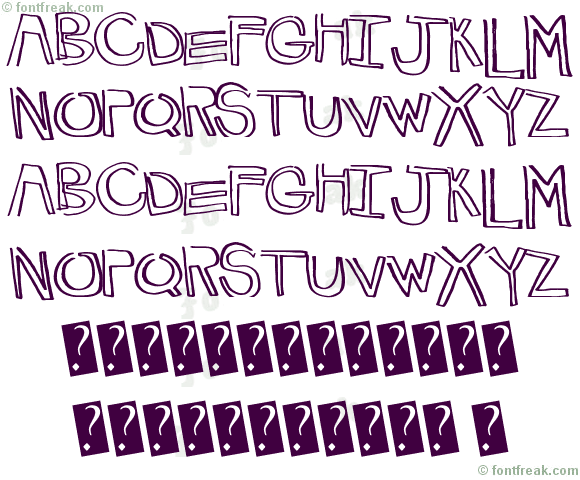
HappyLines
HappyLines, designed by Xerographer Fonts in 2012, is a charming display font that exudes a playful and whimsical character. This handwritten typeface features uneven stroke weights and a light contrast, giving it a lively and spontaneous feel. The letters are generously spaced, allowing for easy readability while maintaining a fun aesthetic. Its unique design includes slight variations in letter height and playful curves, making it ideal for projects that aim to convey joy and creativity.
This font is particularly suited for a variety of use cases. It shines in wedding invitations, where its cheerful style can set a lighthearted tone for the celebration. Additionally, HappyLines is perfect for children’s book covers, adding a touch of whimsy that appeals to young readers. Restaurant menus can also benefit from its inviting appearance, making dishes sound even more delectable. Furthermore, HappyLines works well for social media graphics, helping content creators engage their audiences with a fun and approachable vibe.
Target audiences for this font include graphic designers looking to add a playful element to their projects, small business owners aiming to create a memorable brand identity, and content creators who want to infuse their materials with a sense of joy. HappyLines font free download is an excellent option for those who seek to elevate their designs without incurring costs.
Overall, HappyLines stands out due to its unique, carefree style that captures attention and evokes positive emotions. Its versatility across various applications makes it a valuable addition to any designer's toolkit, ensuring that each project it graces feels both vibrant and inviting. Whether you’re crafting invitations, designing promotional materials, or enhancing digital content, HappyLines is sure to bring a smile to your audience’s faces.